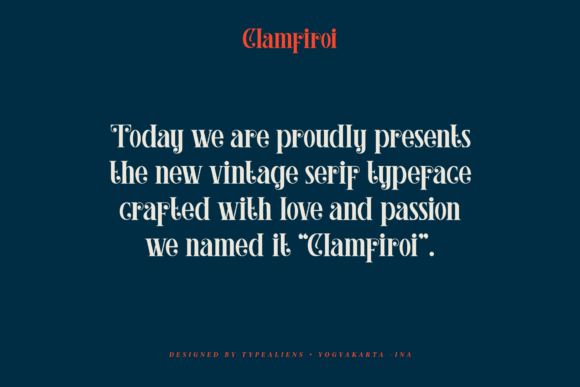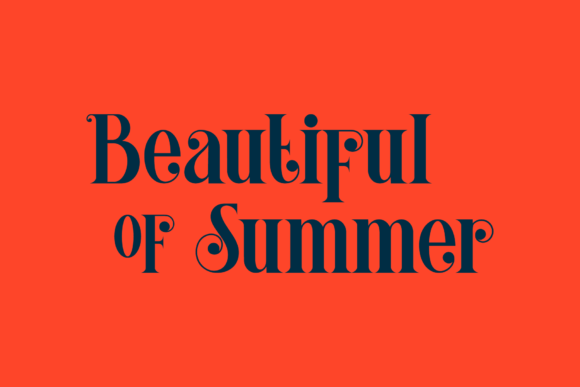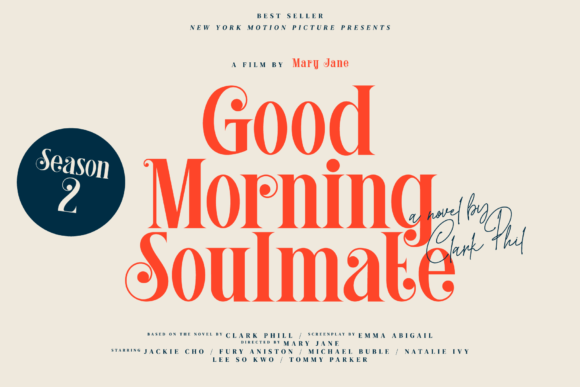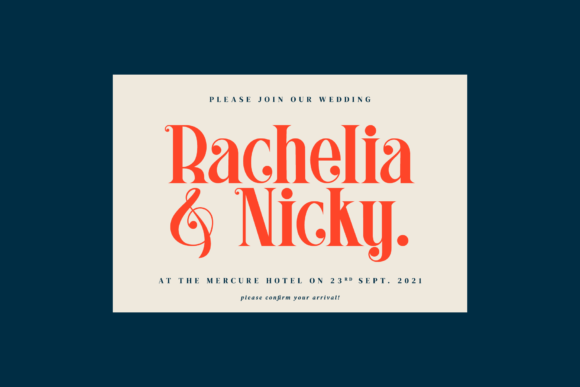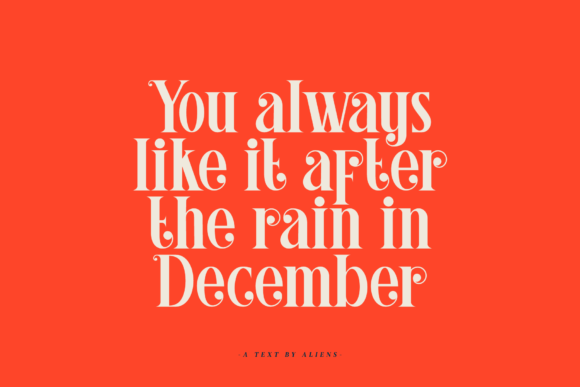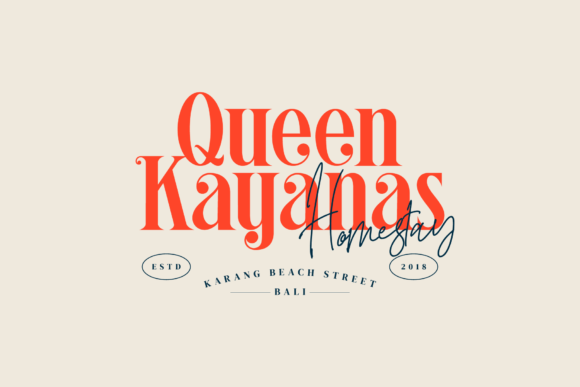
The Clamfiroi Font: A Charming Serif Delight for Creative Minds
Have you ever been in the middle of a design project, and suddenly, the font you’ve been using just doesn’t cut it? You’re striving for that perfect blend of elegance and whimsy, but it’s just out of reach. That’s exactly what happened to me on a recent project. I was working on a client’s branding, aiming for a vintage yet modern feel, when I stumbled upon the Clamfiroi Font. This lovely serif font has been a game-changer, and I’m excited to share my experience with you.
My First Impressions: A Love Affair with Clamfiroi
The first time I saw Clamfiroi, I was immediately drawn to its charming, unique characters. The serif details are intricate without being overly ornate, making it perfect for projects that require a touch of sophistication. I knew right then that I had to incorporate it into my design.
Here’s what I love about Clamfiroi:
- ✨ Unique Character Set: Each letter has a distinct personality, adding a human touch to any design.
- ✅ Elegant Serif Details: The serifs are beautifully crafted, providing just the right amount of flair.
- 🌈 Versatility: It works well in both digital and print formats, from branding to stationery.
And here are a few quirks to consider:
- 🤔 Legibility at Small Sizes: While it’s stunning at larger sizes, it can get a bit tricky to read at smaller sizes or in body text.
- ⚠️ Limited Availability of Certain Glyphs: Some special characters or glyphs might not be included, which could be a limitation for specific projects.
The Story Behind Clamfiroi: A Designer’s Inspiration
Clamfiroi was crafted with the intention of bringing a touch of vintage charm to modern designs. Inspired by classic typography and the elegance of handwritten letters, the designer aimed to create a font that feels both nostalgic and fresh. The result is a beautiful blend of old-world charm and contemporary style.
| Font Name | Clamfiroi Font |
| Author | typealiens |
| What makes Clamfiroi unique? | Its charming, unique character set and elegant serif details make it stand out. |
| Is Clamfiroi suitable for body text? | While it’s stunning for titles and headings, it might not be the best choice for lengthy body text due to readability issues at smaller sizes. |
| Does Clamfiroi support OpenType features? | Yes, Clamfiroi supports OpenType features, allowing for stylistic alternates and more customization. |
Clamfiroi is more than just a font; it’s a design element that can elevate your projects with its unique charm and elegance. Whether you’re a designer, crafter, or hobbyist, adding Clamfiroi to your toolkit can help your creative ideas stand out. So, go ahead and experiment with Clamfiroi in your next project — I promise you won’t be disappointed!